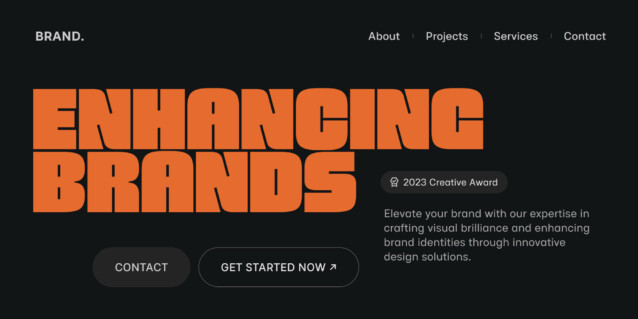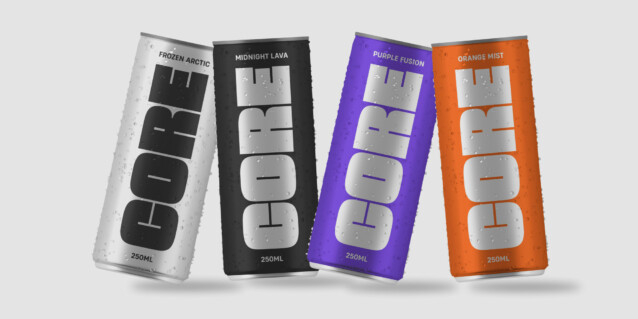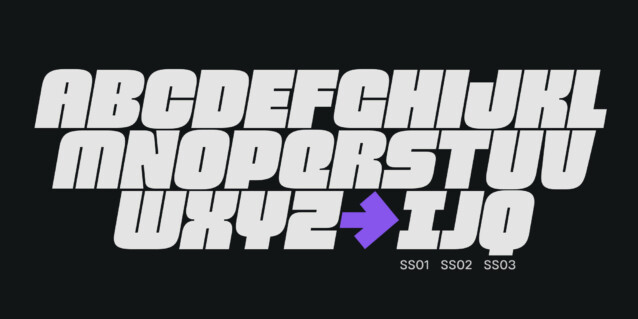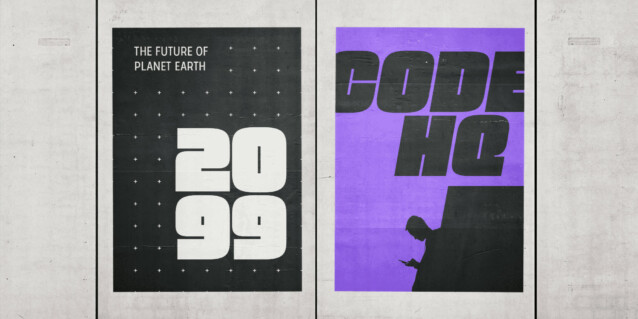
Brexon Font is a heavy display typeface that commands attention. Ideal for use in prominent headlines and heavy text layouts.
Meet Brexon! A heavy display typeface that commands attention. Ideal for use in prominent headlines and heavy text layouts.